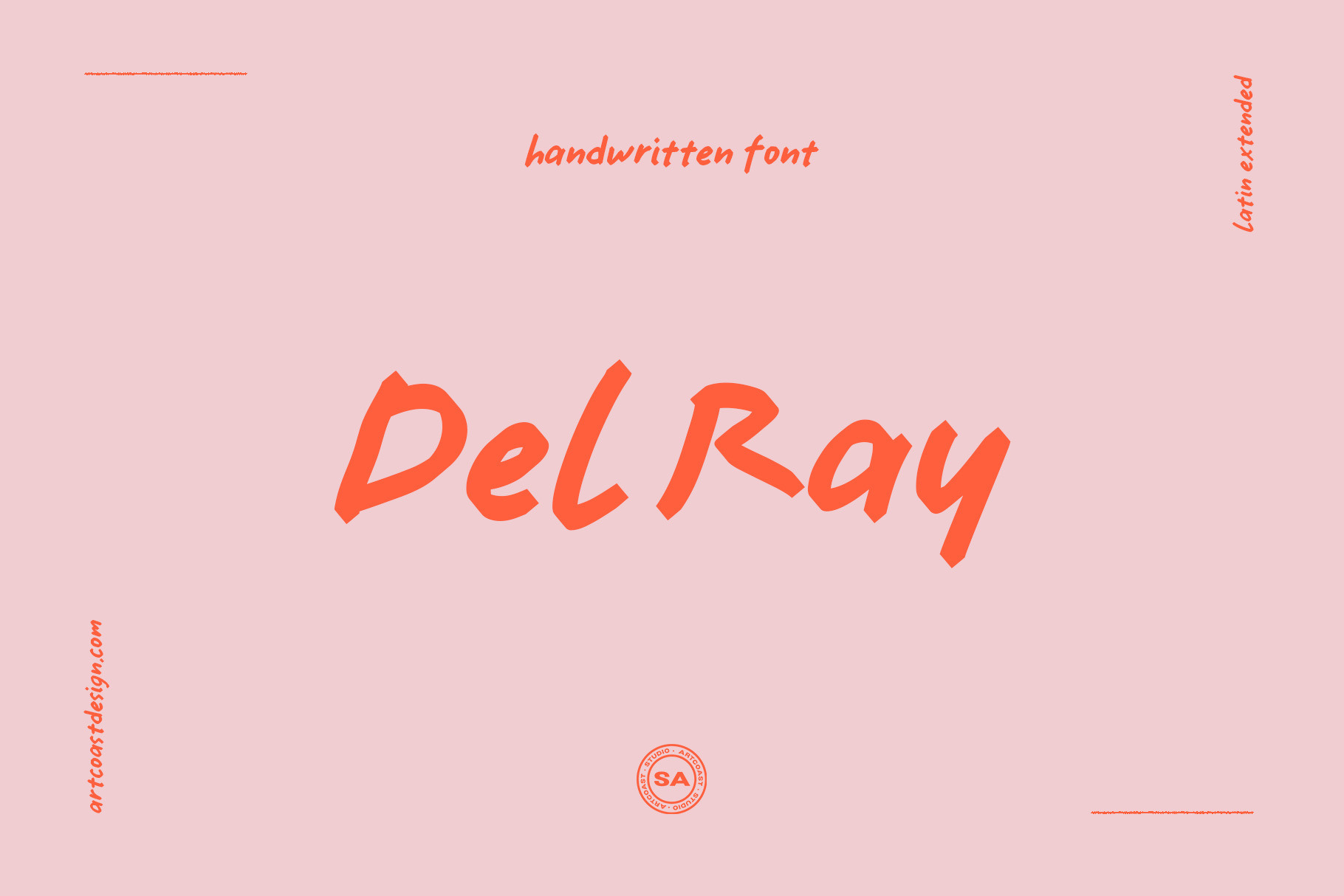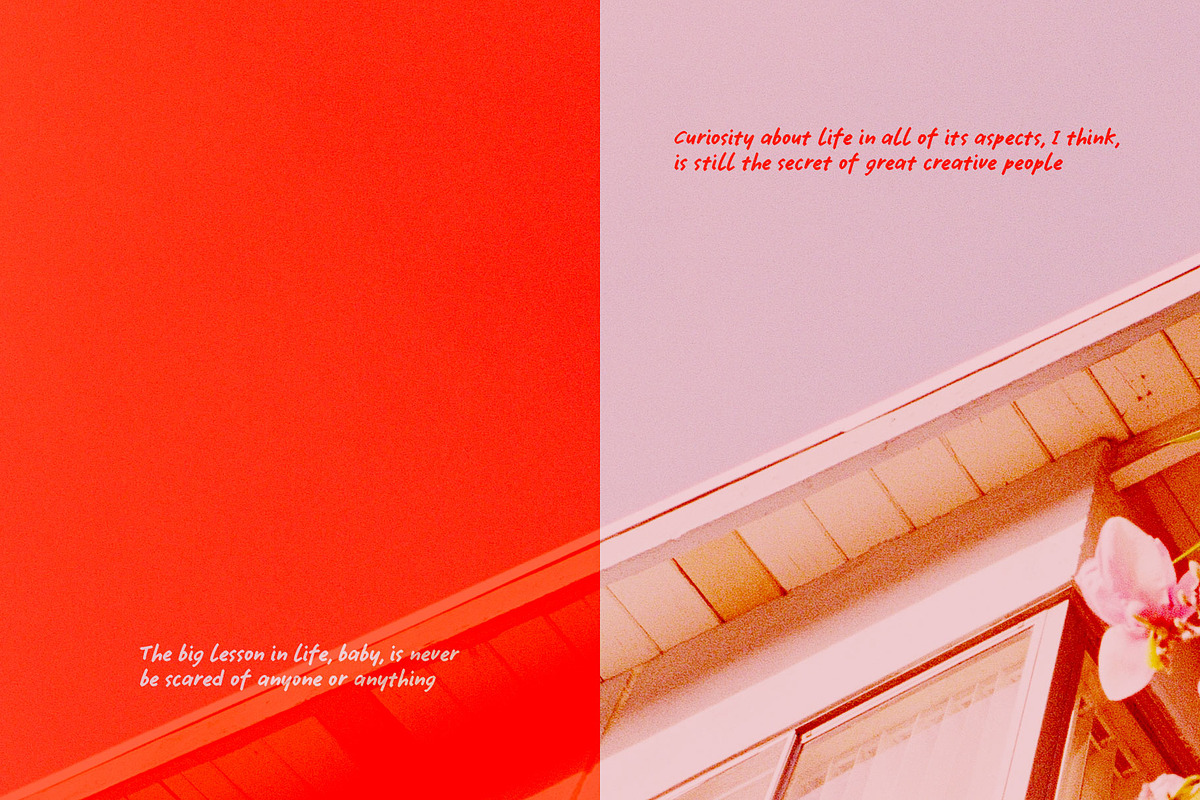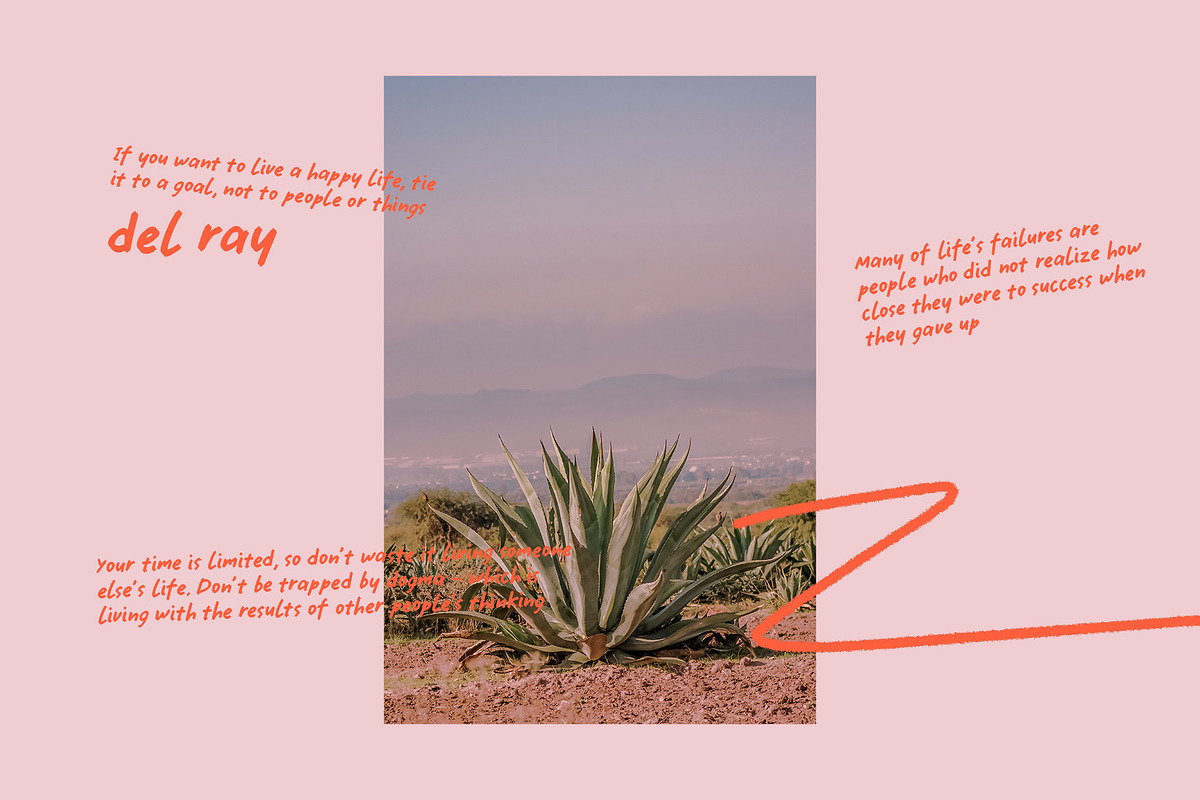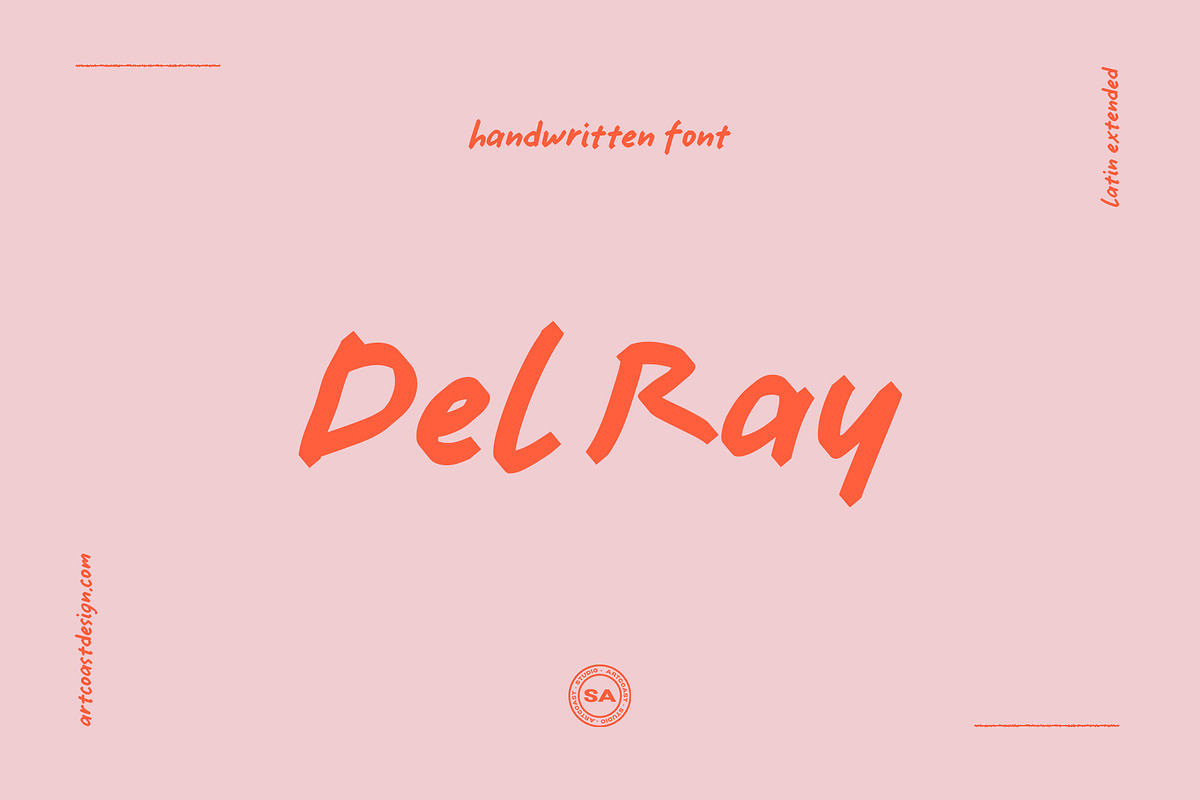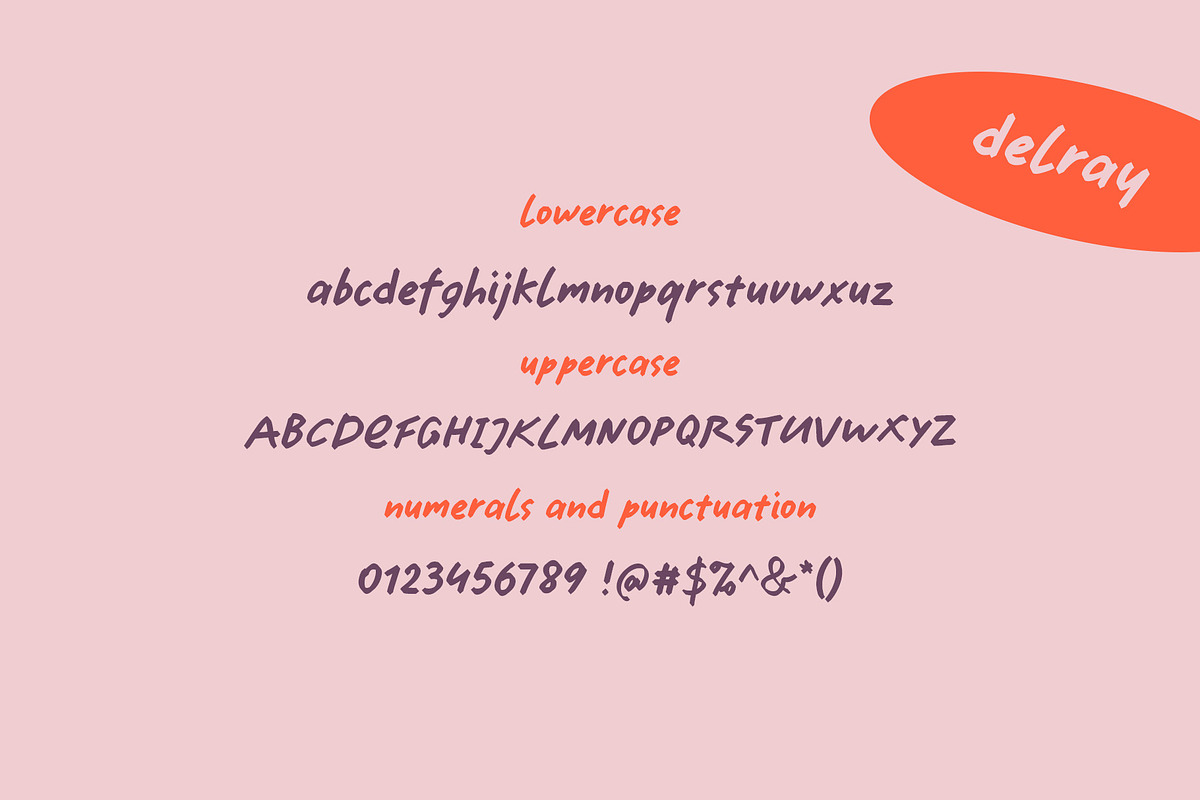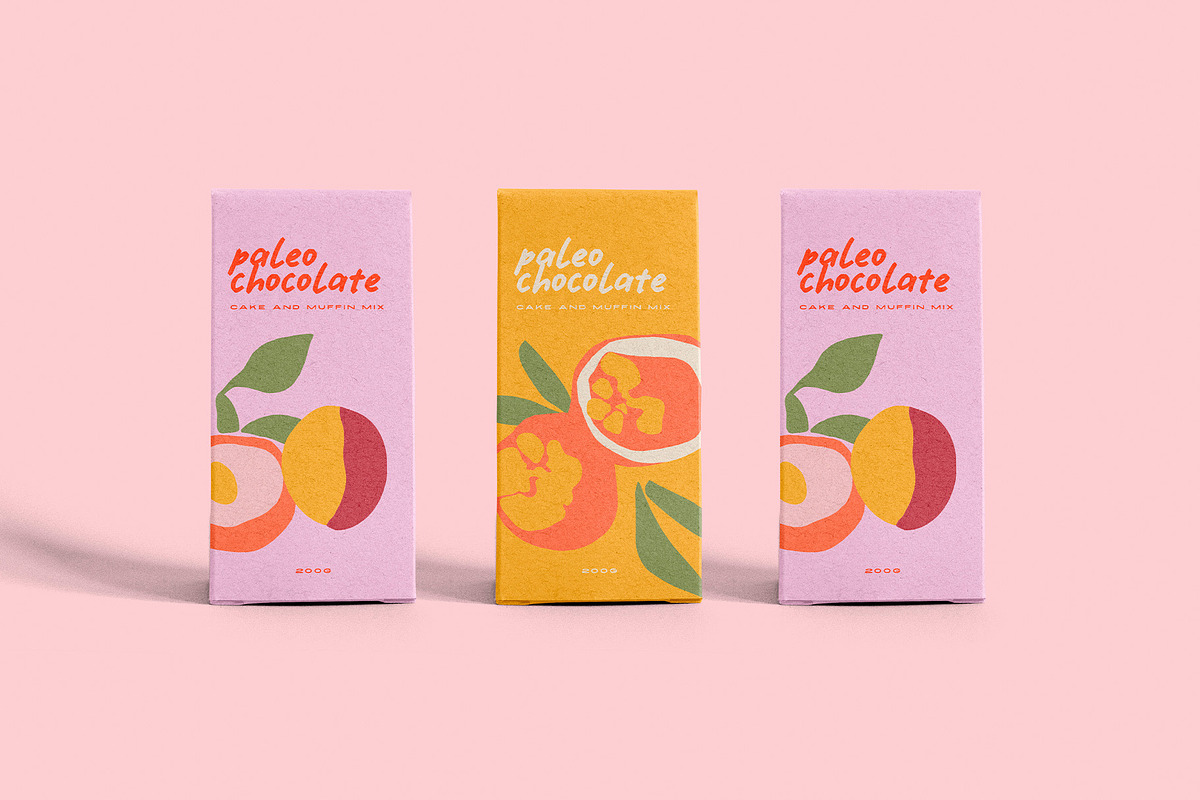
SA Del Ray Handwritten Font
Unleash the power of personal touch in your creative projects with the SA Del Ray Handwritten Font. This distinctive typeface beautifully encapsulates the charm and authenticity of human handwriting, making it an ideal choice for any design that calls for a more intimate, personal, or organic feel.
Each character in the SA Del Ray Handwritten Font is carefully crafted to maintain the quirks and nuances of real handwriting, while still ensuring a clean, professional finish. This makes it perfect for everything from branding and logos, to greeting cards, invitations, quotes, social media posts, and website design.
The font includes a comprehensive set of characters, including uppercase and lowercase letters, numerals, punctuation, and a range of special characters. It supports multiple languages, which makes it highly versatile and adaptable for a wide array of projects.
Whether you're a designer seeking a unique touch for your next project, or a business looking to inject a dose of personality into your branding, the SA Del Ray Handwritten Font is an excellent choice. Not only will it bring an authentic handwritten aesthetic to your designs, it will also convey a sense of warmth and approachability that few other fonts can match.
SA Del Ray Handwritten Font: the perfect balance of charm, authenticity, and professionalism, tailored for your creative needs.